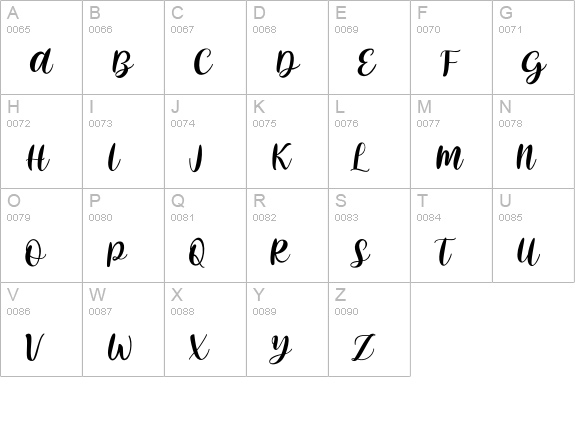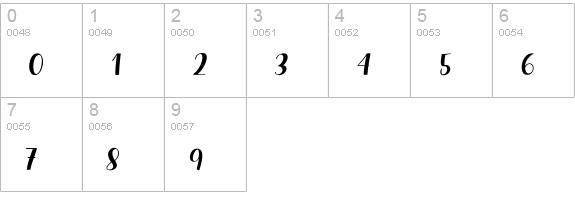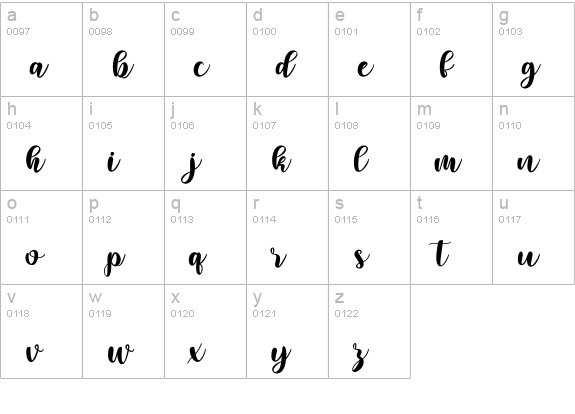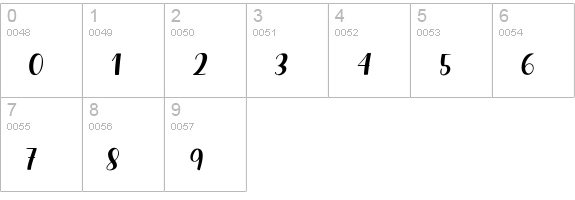
Introducing Hairmony font, a harmonious blend of elegance and playfulness that is sure to elevate your design projects to new heights. This stylish font exudes a sense of creativity and sophistication, making it perfect for a wide range of applications.
With its flowing lines and delicate curves, Hairmony font adds a touch of whimsy and charm to any design. Whether you're creating invitations, logos, posters, or any other creative project, this versatile font is sure to make a lasting impression.